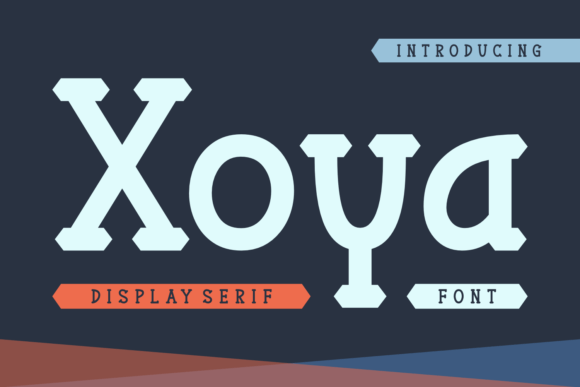
Xoya: A Classic and Quirky Slab Serif Font
Xoya is a classic yet quirky slab serif font that brings a distinct and timeless style to designs. This unique typeface helps creators craft spectacular projects with its memorable character.
Key Features of Xoya
- Classic Design: Offers timeless slab serif elements.
- Quirky Style: Brings unique personality to designs.
- Distinct Character: Features memorable letterforms.
- Versatile Appeal: Perfect for spectacular creations.
When using Xoya in your designs, keep these tips in mind:
- Try it for headlines or display text to showcase its quirky style.
- Use different sizes to highlight its classic features.
- Let its distinct character enhance creative projects.
- Take advantage of its timeless appeal for lasting designs.
To sum up, Xoya is an excellent choice for designers seeking a classic yet quirky slab serif font. Its distinct style makes it perfect for creating spectacular designs. Whether you’re developing creative projects or crafting unique layouts, Xoya offers the perfect blend of timeless appeal and quirky character.
Furthermore, Xoya’s distinctive design allows it to shine in contexts where both classic style and unique personality are key. The font can elevate your projects with its memorable character while maintaining a timeless foundation that ensures lasting appeal.
In conclusion, Xoya truly captures the essence of distinctive design in slab serif typography. Its ability to combine classic elements with quirky charm shows how well it can serve creative needs. Therefore, for those wanting to create spectacular designs with a unique touch, Xoya can transform any project with its distinctive style. Ultimately, it’s perfect for designers aiming to make a memorable impact with timeless appeal.